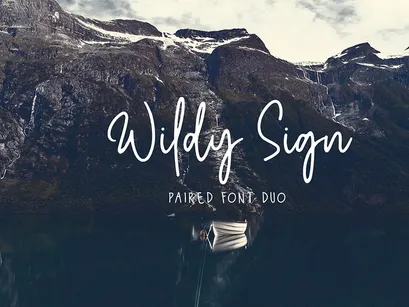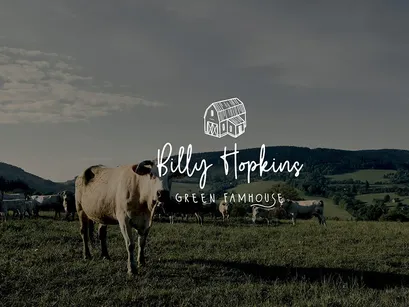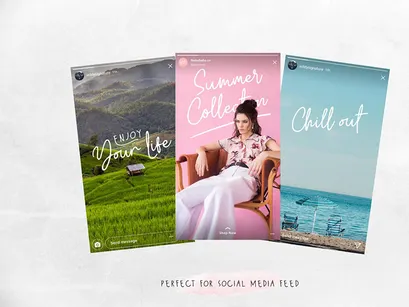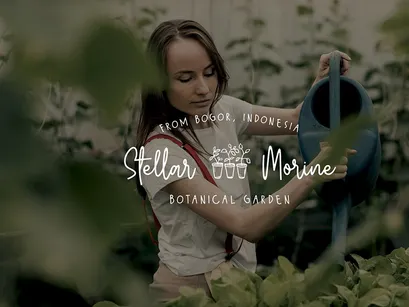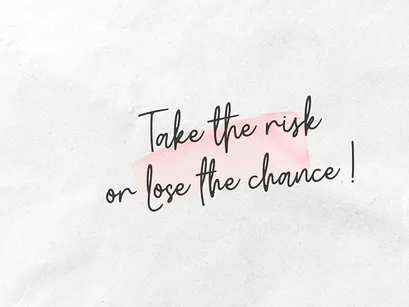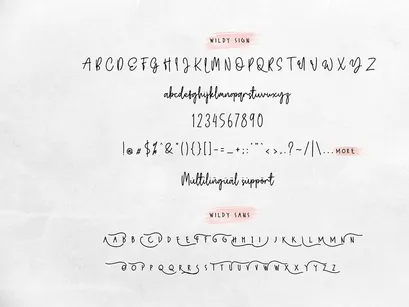
Wildy Sign Signature Font
Wildy Sign Signature Font is a hand-drawn monoline signature font, they have a fashionable, fun, and chilled character. Wildy Sign comes with two font styles, script and sans. Pairing the script and sans font to create fun, stylish, and eye-catching typography. Suitable and applicable to create social media feed, Christmas card, branding, logos, product packaging, invitation, quotes, t-shirt, label poster, etc.